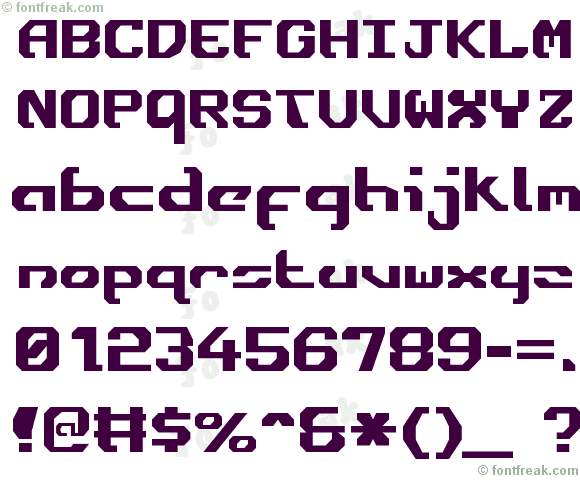
Ensign Flandry Italic
Ensign Flandry Laser Italic
Ensign Flandry LasShad Italic
Ensign Flandry Shadow
Ensign Flandry
Ensign Flandry Laser
Ensign Flandry Shadow Italic
Ensign Flandry Bold
Ensign Flandry is a striking display font designed by Iconian Fonts, characterized by its unique blend of boldness and elegance. This font falls into the decorative category, making it an excellent choice for projects that require a distinctive and eye-catching typeface. Its visual characteristics include a substantial stroke weight coupled with sharp angles and a geometric flair, offering a modern yet futuristic appearance. The spacing is well-proportioned, ensuring readability while maintaining a playful aesthetic, enhanced by shadow effects that add depth to the characters.
This font is particularly well-suited for various creative applications. Graphic designers may find Ensign Flandry ideal for movie posters, where its boldness can effectively capture attention and convey dynamic themes. Additionally, it can be employed in branding materials for tech startups, giving a contemporary edge to logos and promotional content. Restaurant menus can also benefit from this typeface, as its unique style can make dish names pop, enticing customers with a visual treat. Furthermore, content creators looking to make an impact on social media graphics will appreciate the font's ability to stand out in crowded feeds.
In summary, the Ensign Flandry font free download represents a perfect fusion of bold design and versatility. Its unique aesthetic and contemporary look make it an exceptional choice for anyone looking to elevate their visual communication. Whether for print or digital media, this font will undoubtedly leave a lasting impression.